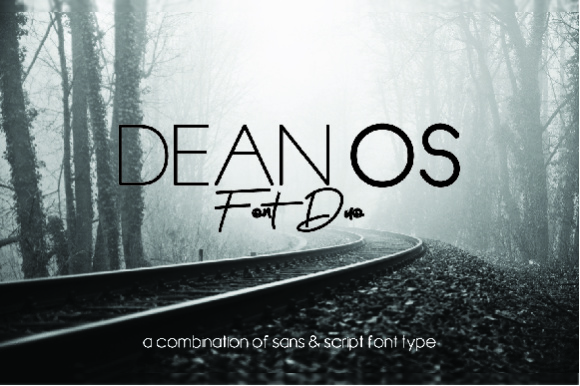
Introducing Dean Os Duo, the captivating font duo that will ignite your creativity and elevate your designs to new heights. This exquisite pairing of sans and script fonts is a visual masterpiece, perfect for a myriad of projects.
Dean Os Script, with its elegant handwritten style, lends a touch of warmth and personality to your creations. It dances across the page, evoking a sense of intimacy and authenticity. Picture your wedding invitations adorned with this graceful script, alluring guests with its timeless charm. Or envision your brand's logo, infused with a touch of sophistication and individuality.
Complementing the script is Dean Os Sans, a clean and modern font that provides the perfect foundation for your designs. Its sleek lines and crisp edges bring clarity and organization to your text, ensuring readability and impact. Together, these two fonts create a dynamic duo that will make your designs stand out from the crowd.
Whether you're a seasoned designer or a creative enthusiast, Dean Os Duo is your go-to choice for adding a spark of brilliance to your projects. Its versatility knows no bounds, from elegant invitations to eye-catching branding materials. With Dean Os Duo, the possibilities are limitless.